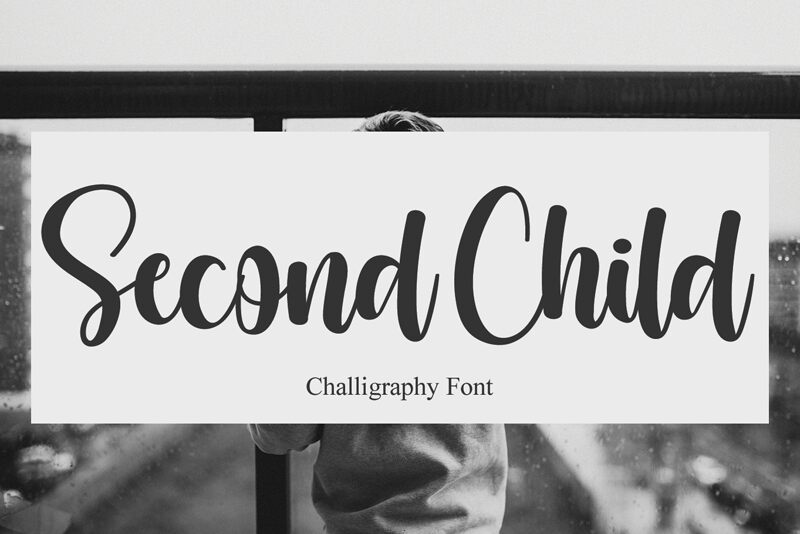
Second Child
Second Child is a captivating handwritten font, masterfully crafted by Erik Studio. Its exquisite calligraphic influences seamlessly blend with a contemporary, fresh aesthetic, evoking a sense of timeless elegance. The font's organic, expressive strokes and natural flow captivate the eye, making it a true standout in any design project.
This versatile font lends itself beautifully to a wide range of applications, from elegant branding and editorial layouts to charming invitations and personalized stationery. Its calligraphic flair and versatility make it an ideal choice for projects that require a touch of sophistication and personality, elevating the overall design with its unique and compelling character.